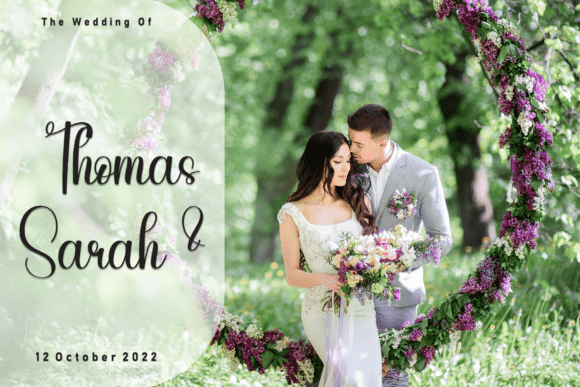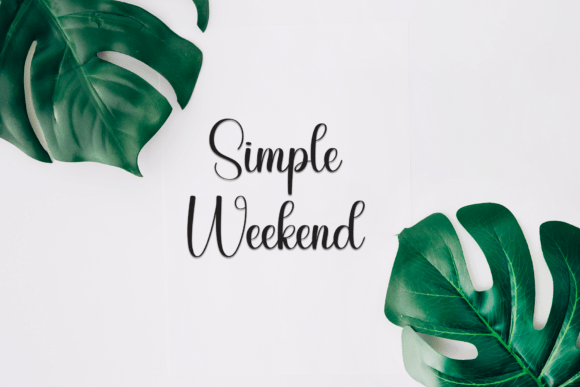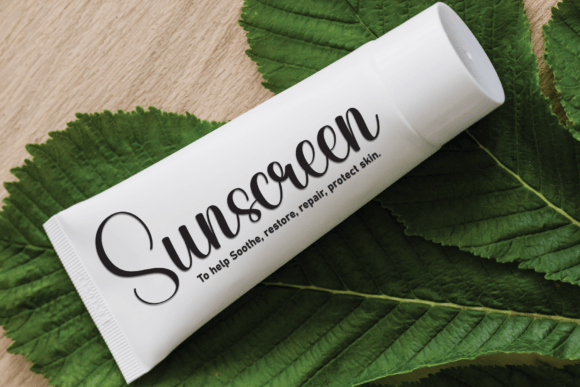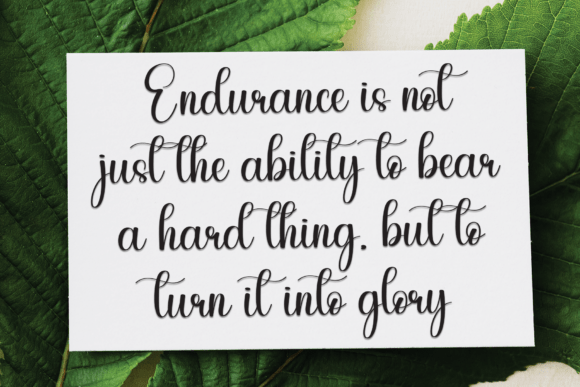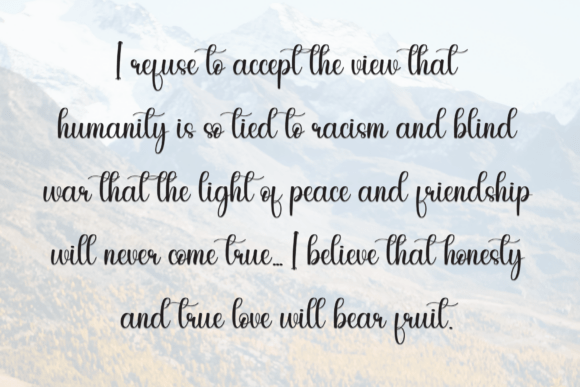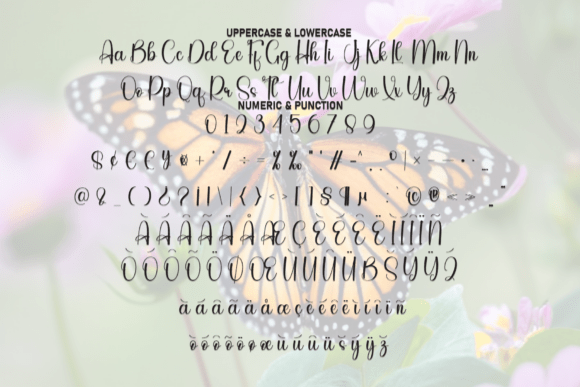
Welcome to the Whimsical World of Butterfly Font
Imagine being in the midst of a design project, with a clear vision of what you want to create, but struggling to find the perfect font to bring it all together. I recall a particularly daunting experience when a client requested a custom wedding invitation design that exuded elegance and playfulness. The challenge was real – until I stumbled upon the captivating universe of the Butterfly Font.
The Magic of Butterfly Font
This strikingly elegant handwritten display font is smoldering with its irresistible charm, laden with a heartwarming sweetness that weaves a titillating magic into your design. Infusing a lively vivaciousness through each of its sassy curves and lines, Butterfly Font is perfect for assembling sophisticated wedding invites or buoyant greetings, spiriting breath into any text craving a dash of excitement.
As a designer, I’ve had the pleasure of working with Butterfly Font on several projects, and here’s what I love about it:
- ✨ Elegant yet playful aesthetic
- ✅ Highly versatile for various design projects
- 💫 Beautifully crafted with attention to detail
- 🎉 Easy to read and visually appealing
However, I do have to mention a few minor quirks:
- ⚠️ Limited availability of Cyrillic or non-English characters
The Backstory Behind Butterfly Font
The story behind Butterfly Font begins with a young designer who was fascinated by the beauty of handwritten typography. Inspired by the delicate curves of butterfly wings, she crafted a font that embodies the same elegance and playfulness. With a passion for creating unique and captivating designs, she poured her heart and soul into Butterfly Font, making it a treasured find for designers and crafters alike.
| Is Butterfly Font suitable for body text? | While Butterfly Font is primarily designed for display purposes, it can be used for short paragraphs of body text. However, for longer texts, a more traditional font may be more readable. |